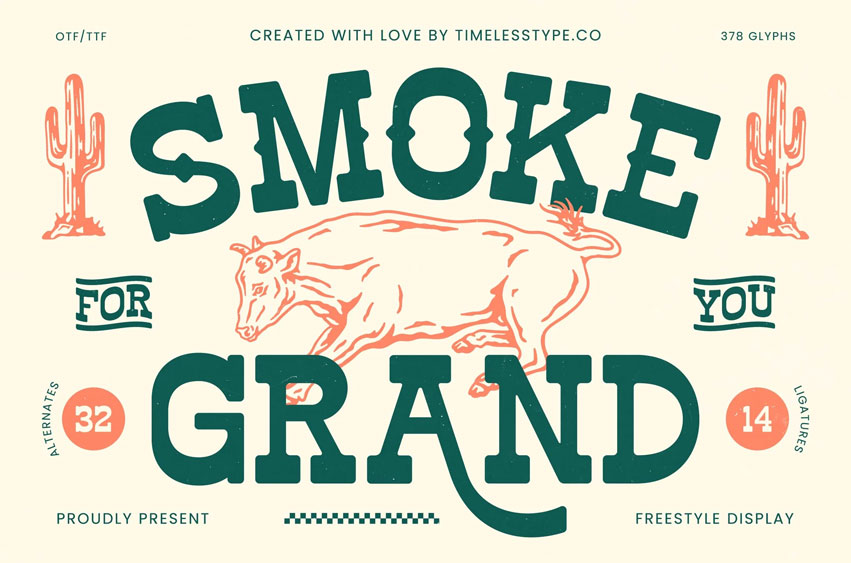
Smoke Grand Font
Smoke Grand Font is a rugged freestyle display font crafted with bold Western energy and vintage American charm. Inspired by ranch culture, barbecue branding, and classic desert signage, this typeface delivers strong personality with thick slab shapes and rustic handcrafted details.
With 32 alternates and 14 ligatures, Smoke Grand lets you shape authentic wild-west aesthetics—perfect for BBQ restaurants, steakhouse menus, ranch logos, western, outdoor posters, and retro Americana layouts.